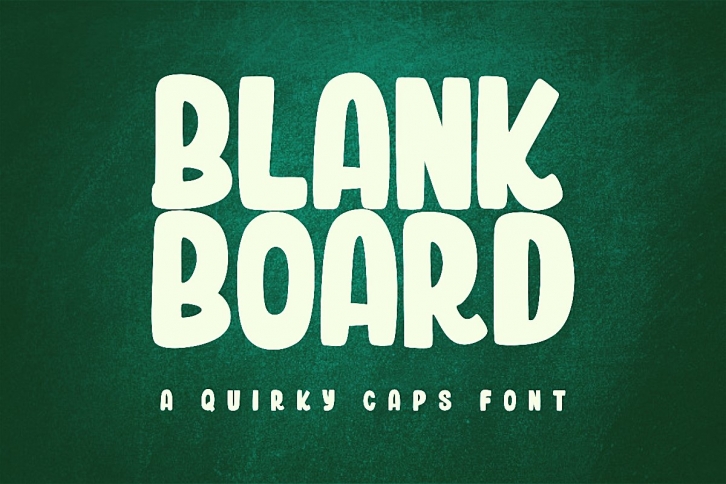
Blankboard is a great font that was designed by deedeetype. Imagine the amount of combinations you can create using this font! The archive is 15.3 MB and it was released on June 23, 2020. Blankboard looks beautiful on wedding invitations, greeting cards, logos, posters, labels, t-shirt designs, logos, business cards and is perfect for use in ink or watercolor works, fashion, magazines, packaging and food menus, children's books and more!